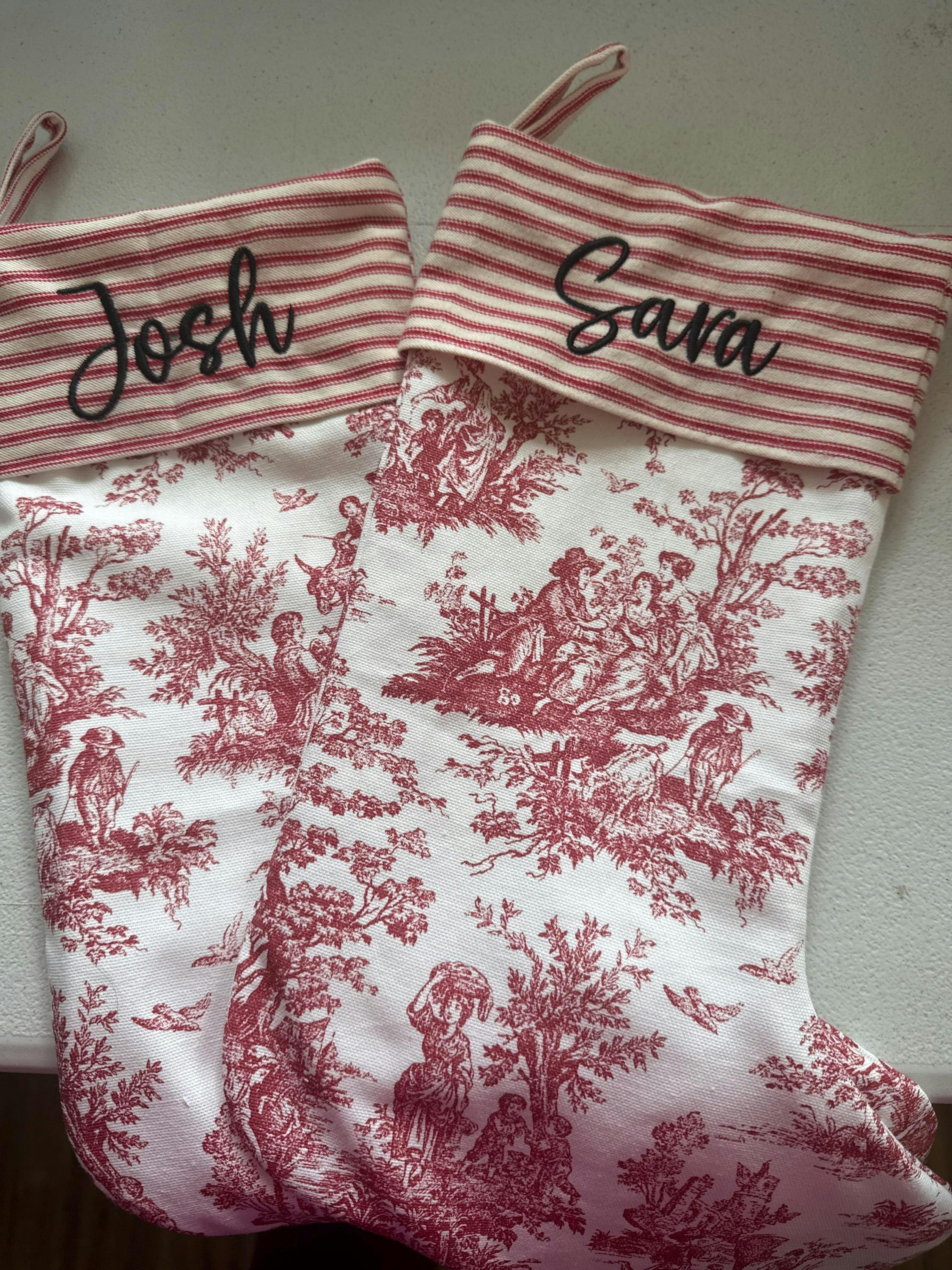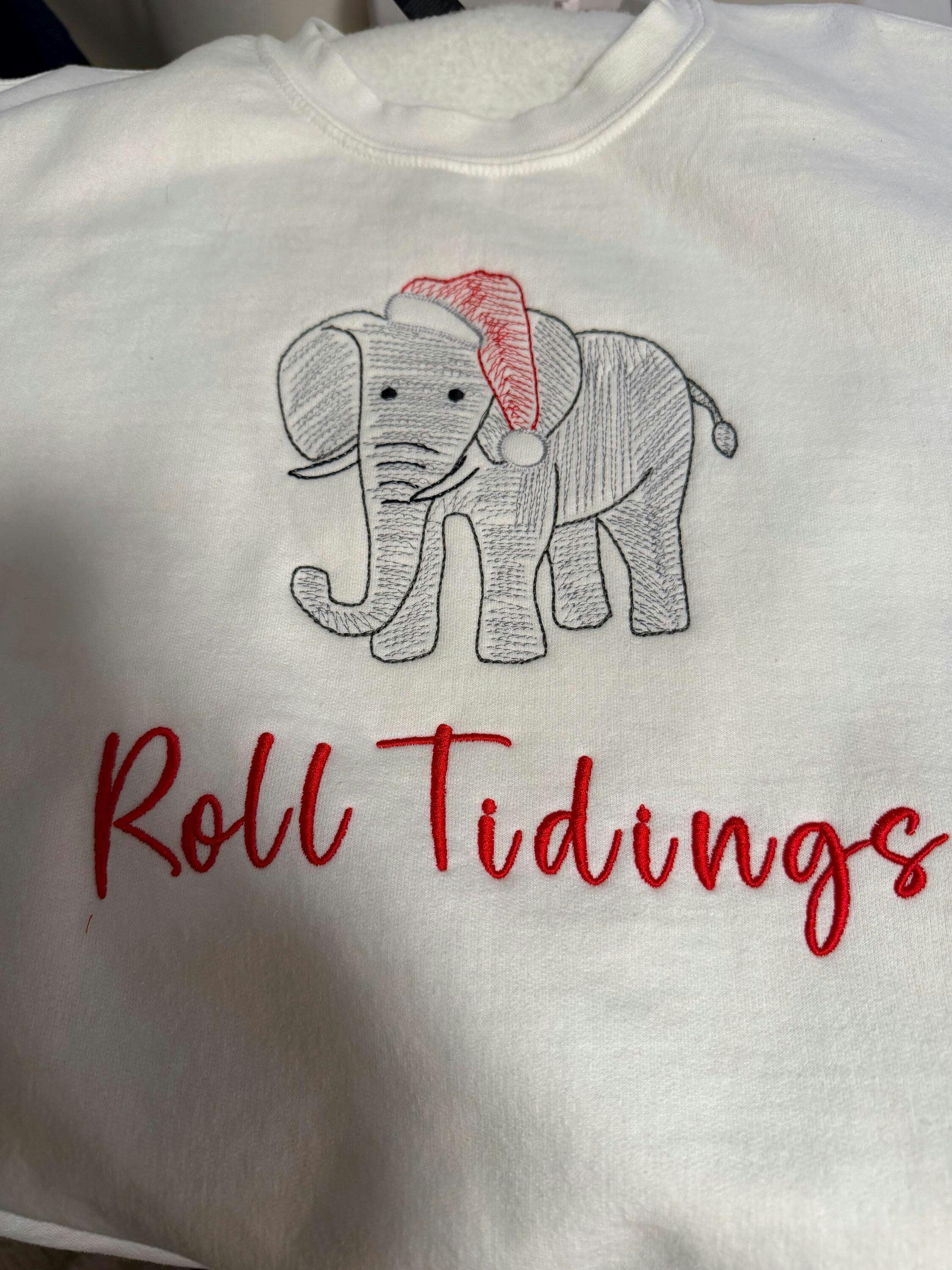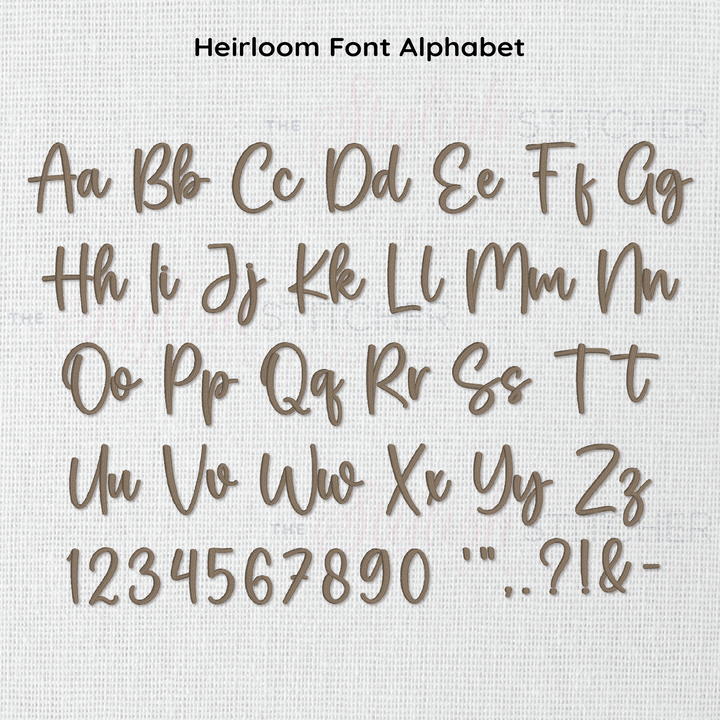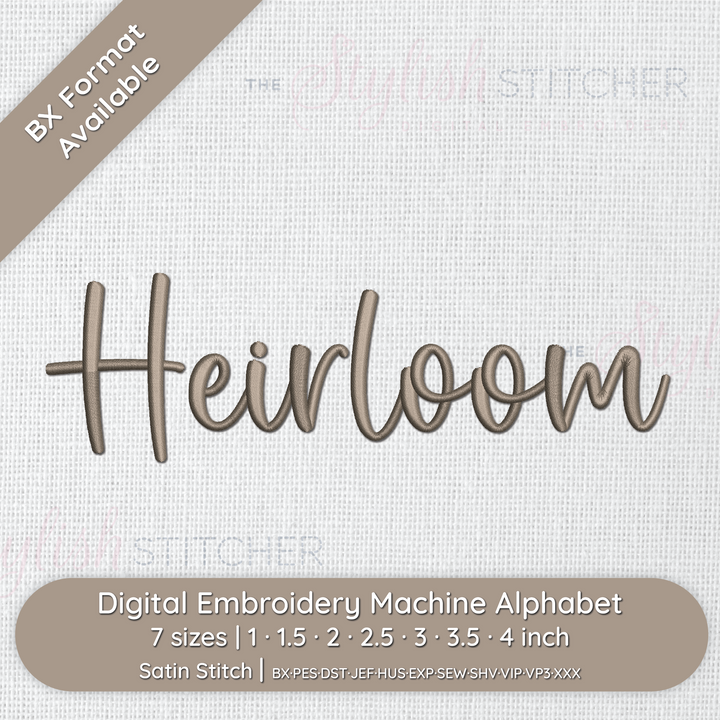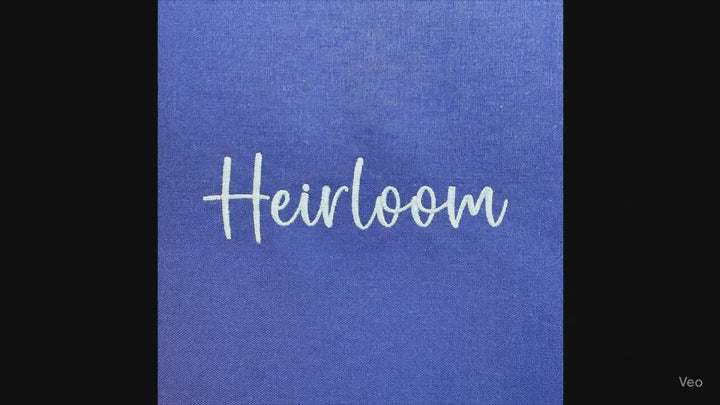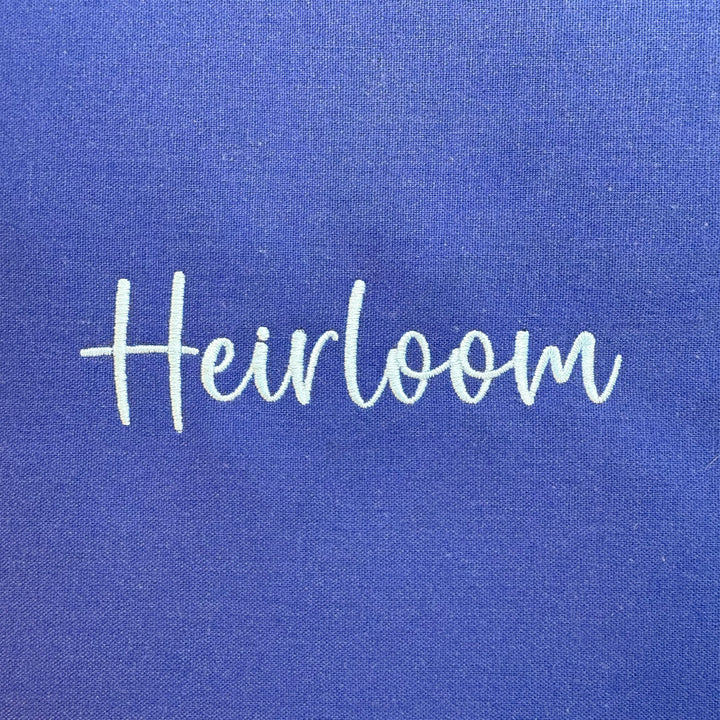
Photograph of Heirloom embroidery font
Photograph of Heirloom embroidery font alphabet
Photograph of stitched out Heirloom embroidery font
Video showcasing stitched out Heirloom font and alphabet
Heirloom Digital Embroidery Font
Heirloom carries the warmth and elegance of a cherished keepsake, adding a touch of nostalgia and depth to your embroidery projects. Whether you’re embellishing a vintage-inspired pillow or a timeless monogram, Heirloom brings a sense of history and craftsmanship to every stitch.